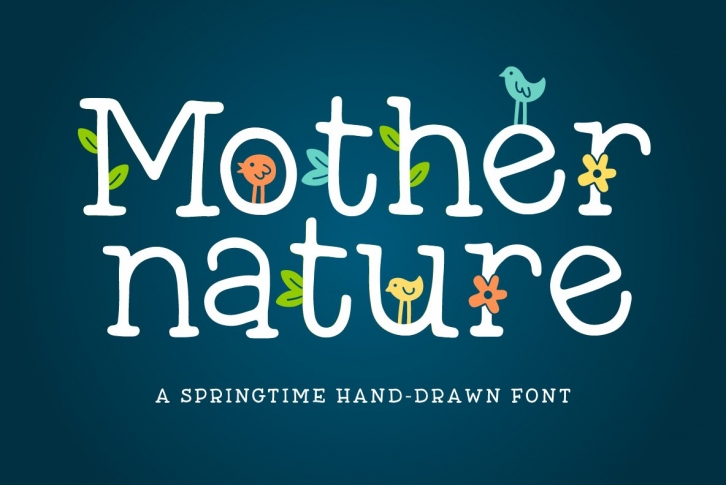
Introducing: Mother Nature! A beautiful font that will give your projects a classic, yet fun and unique feel. Perfect for birth announcements, wedding invitations, anything that needs a touch of cuteness.